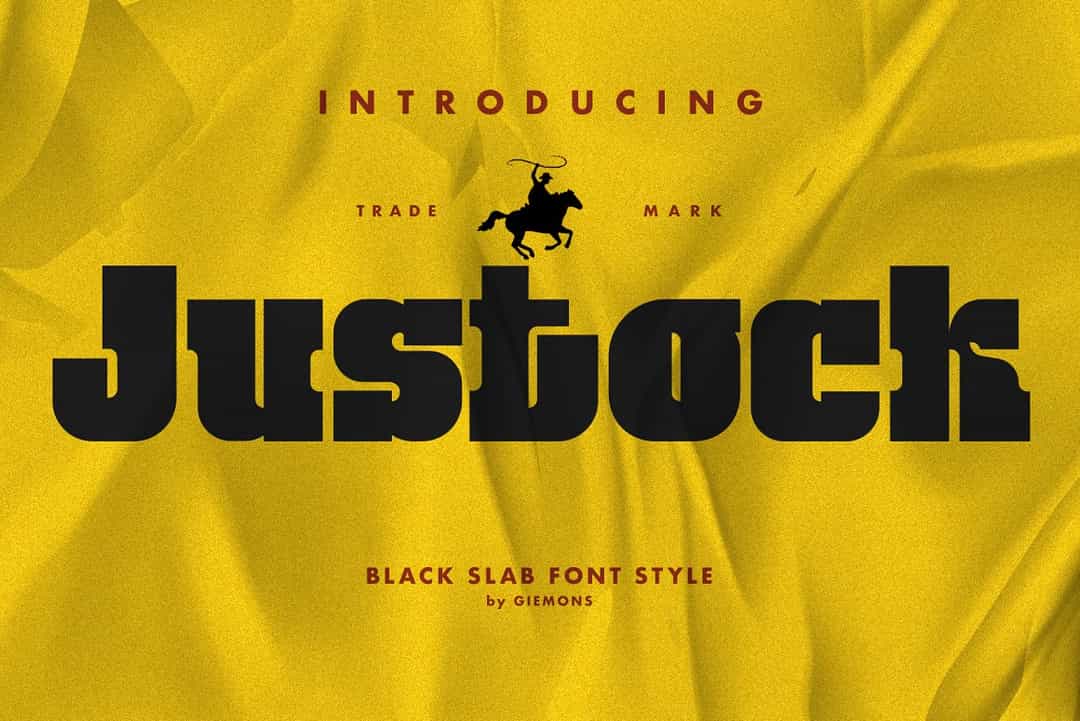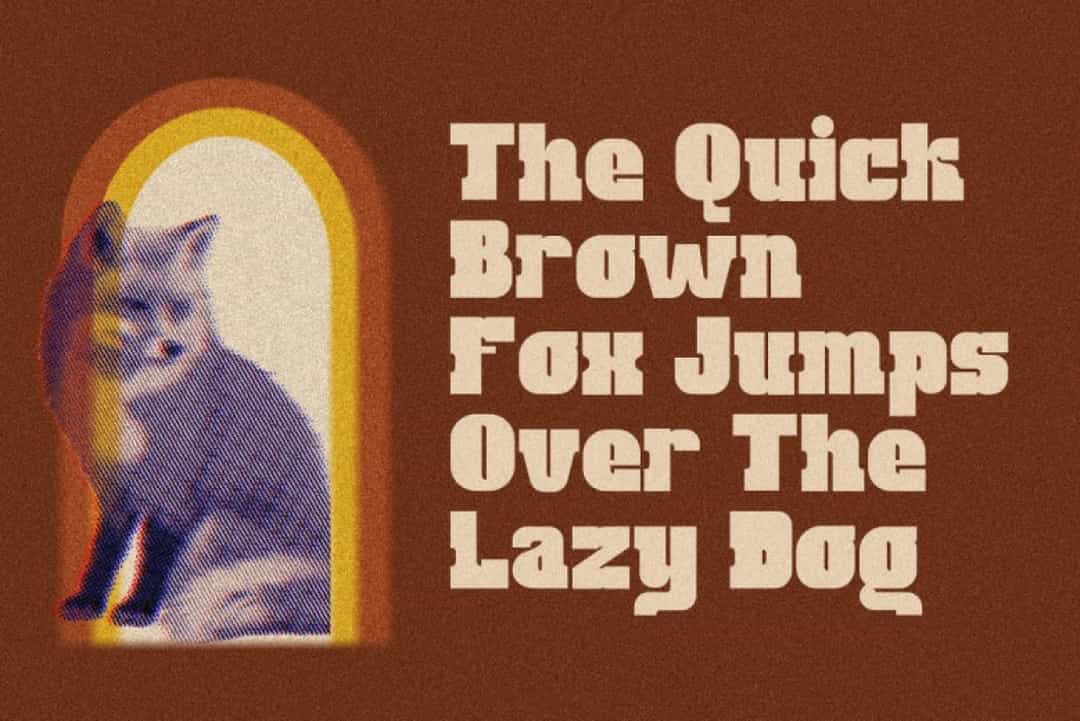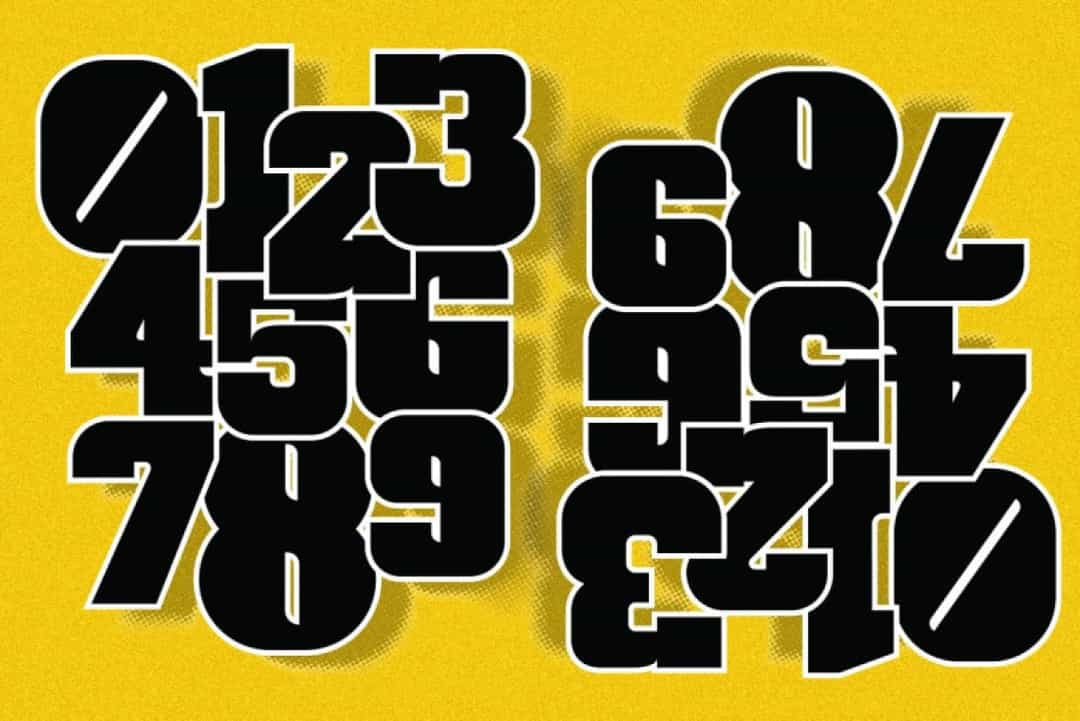
Justock Slab Serif Font, featuring its iconic BLACK SLAB design, seamlessly merges classic and contemporary elements for a fashionable and distinctive aesthetic. Perfect for use in logo design, branding materials and digital marketing campaigns alike!